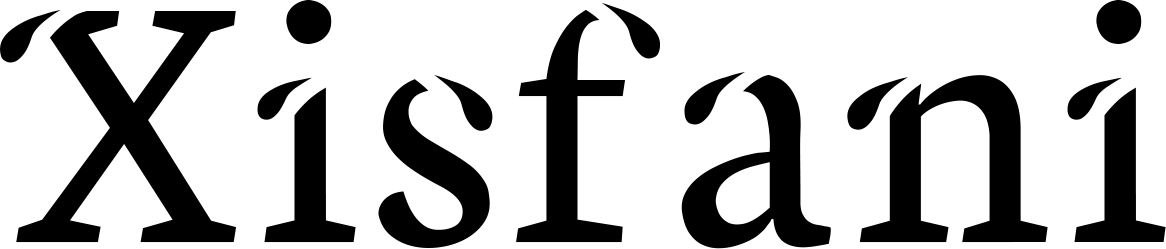
Xisfani Font
This typography is based on the mexican culture called Otomí. It’s name means corn leaf , which is used in their textile designs.
Hope you enjoy this playful type.